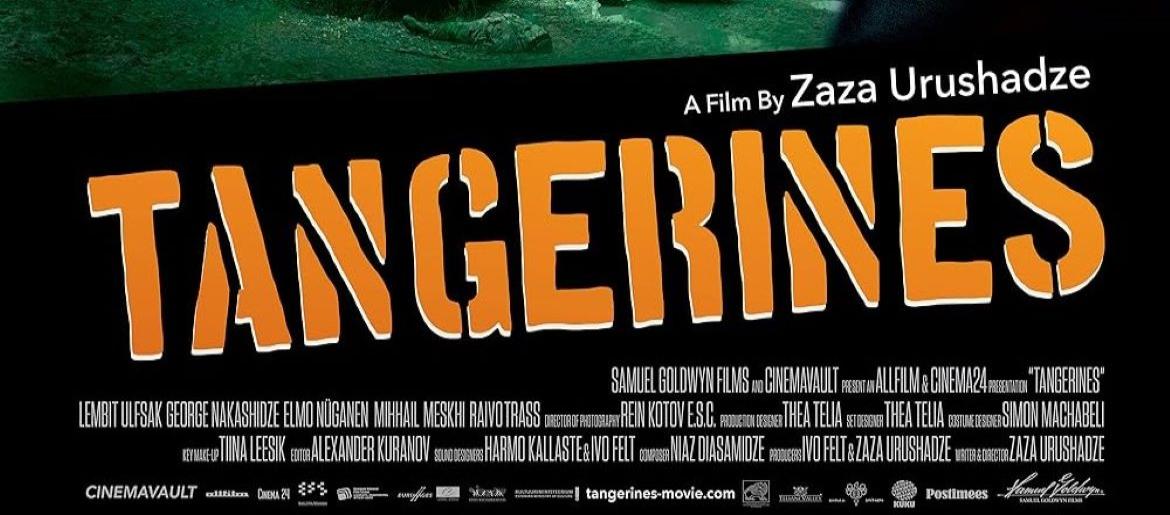
Tangerines Font
The Tangerines Font beautifully reflects the quiet strength and humanity portrayed in Zaza Urushadze’s 2013 film. Its modest, understated design carries a sense of dignity and calm, echoing the film’s themes of compassion and resilience. This elegant font alternative captures the same sincerity and subtle presence as the original title lettering.
About Tangerines
The Tangerines Font mirrors the understated, heartfelt tone of the film, which tells a story of survival and empathy against the backdrop of war. Its clean, simple design communicates clarity and quiet strength, making it ideal for projects that require subtle emotional resonance. Designers seeking a balance of elegance and simplicity often look for fonts like Georgia, Garamond, or Helvetica to achieve a similar effect. Perfect for posters, book covers, or cinematic designs, this typeface conveys sincerity and humanity, showing that sometimes the most powerful visual statements come from restraint and thoughtful simplicity, rather than bold or flashy typography.